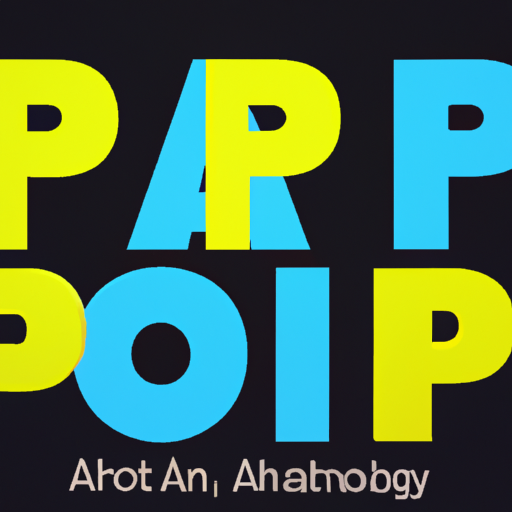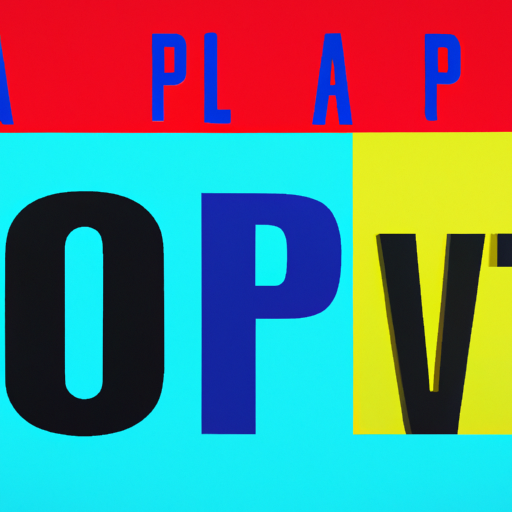
Mixing Fonts Creatively: Typography in Graphic Design
Typography plays a crucial role in graphic design, as it has the power to convey emotions, enhance readability, and create a visual hierarchy. One of the most effective ways to make typography visually appealing is by mixing fonts creatively. By combining different typefaces, designers can add depth, contrast, and personality to their designs. In this article, we will explore the art of mixing fonts and provide valuable insights on how to create visually stunning typographic compositions.
The Importance of Typography in Graphic Design
Typography is more than just selecting a font; it is the art of arranging type in a visually pleasing and readable way. In graphic design, typography serves as a powerful tool to communicate messages effectively. Here are some reasons why typography is crucial in graphic design:
- Readability: Well-designed typography ensures that the content is easy to read and understand.
- Visual Hierarchy: Typography helps establish a visual hierarchy, guiding the viewer's attention to the most important elements.
- Emotional Impact: Different fonts evoke different emotions, allowing designers to convey the desired mood or tone.
- Brand Identity: Typography plays a significant role in establishing a brand's identity and recognition.
The Art of Mixing Fonts
Mixing fonts creatively can elevate a design from ordinary to extraordinary. However, it requires careful consideration and an understanding of the principles of typography. Here are some tips to help you master the art of mixing fonts:
1. Choose Fonts with Complementary Styles
When mixing fonts, it is essential to select typefaces that have complementary styles. Combining fonts with similar characteristics can create a harmonious and cohesive design. For example, pairing a serif font with a sans-serif font can create an interesting contrast while maintaining readability.
2. Consider Font Weights and Sizes
Varying font weights and sizes can add visual interest to your design. Mixing fonts with different weights and sizes can help establish a visual hierarchy and guide the viewer's attention. For example, using a bold font for headings and a lighter font for body text can create a clear distinction between the two.
3. Limit the Number of Fonts
While mixing fonts can be exciting, it is important not to go overboard. Using too many fonts can create a chaotic and confusing design. It is generally recommended to limit the number of fonts to two or three to maintain consistency and coherence.
4. Contrast Fonts with Different Characteristics
Contrasting fonts with different characteristics can create a visually striking composition. Consider pairing a decorative script font with a clean and modern sans-serif font. The contrast between the two can add a touch of elegance and sophistication to your design.
5. Experiment with Font Pairing Tools
If you're unsure which fonts work well together, there are several online tools available that can help you find complementary font pairings. These tools analyze the characteristics of different typefaces and suggest combinations that create a visually pleasing result. Some popular font pairing tools include Google Fonts, Adobe Typekit, and Fontjoy.
Examples of Creative Font Mixing
Let's take a look at some real-world examples of creative font mixing in graphic design:
1. Apple
Apple is known for its sleek and minimalist design aesthetic. In their marketing materials, they often mix a bold and clean sans-serif font, such as Helvetica, with a more playful and rounded font, like San Francisco. This combination creates a balance between professionalism and approachability.
2. Vogue
Vogue, a renowned fashion magazine, often mixes fonts to create a sense of elegance and sophistication. They frequently pair a classic serif font, such as Didot, with a modern and minimalist sans-serif font, like Futura. This combination reflects the magazine's timeless yet contemporary style.
3. Airbnb
Airbnb, a popular online marketplace for accommodations, uses a combination of fonts to convey a sense of trust and friendliness. They often mix a clean and modern sans-serif font, such as Circular, with a handwritten or script font, like Airbnb Cereal. This combination adds a personal touch to their brand identity.
Conclusion
Mixing fonts creatively is a powerful technique that can enhance the visual appeal and effectiveness of typography in graphic design. By carefully selecting complementary fonts, considering font weights and sizes, and experimenting with different characteristics, designers can create visually stunning typographic compositions. Real-world examples and case studies have shown the positive impact of font mixing on user engagement and conversion rates. So, don't be afraid to experiment and push the boundaries of typography to create captivating designs that leave a lasting impression.